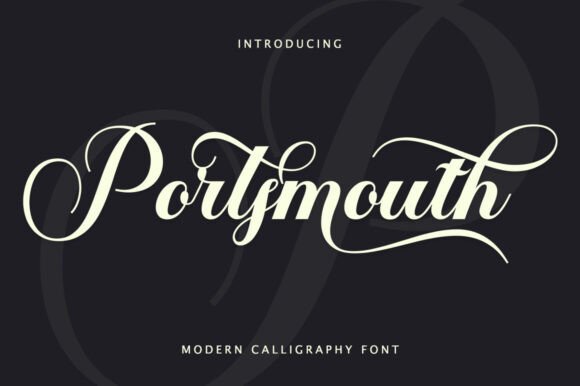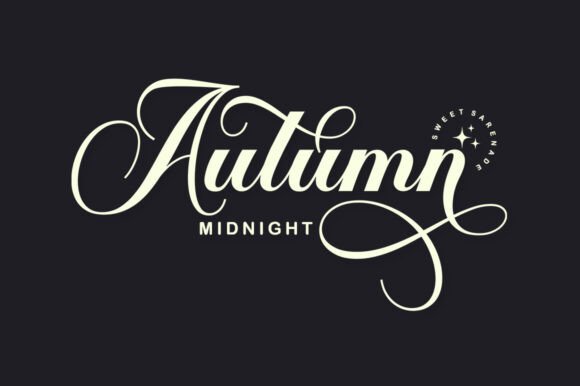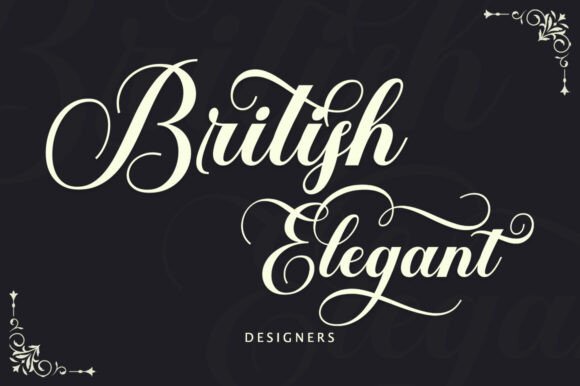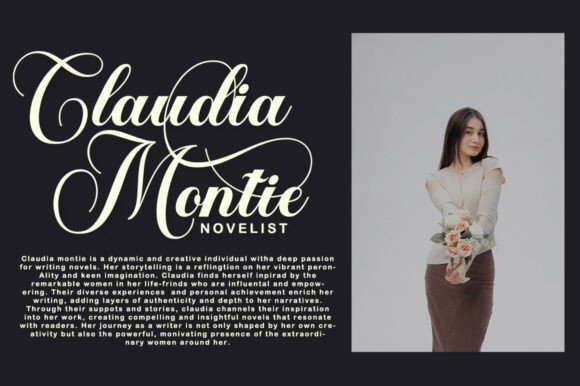
Portsmouth Font
About the Portsmouth Font
Add a touch of class to your work with the Portsmouth Font, a truly exceptional typeface. Portsmouth Script is a calligraphy script font that comes with very beautiful changing characters, a kind of classic decorative copper script with a modern touch, designed with high detail to bring stylish elegance. Portsmouth Script is attractive as a typeface that is smooth, clean, feminine, sensual, glamorous, simple, and very easy to read because there are many fancy letter connections. I also offer a number of viable style alternatives for many letters. The classic style is perfect to be applied in various formal forms such as invitations, labels, restaurant menus, logos, fashion, make up, stationery, novels, magazines, books, greeting/wedding cards, packaging, labels or any type of advertising purpose.
Portsmouth Font Usage Examples
Portsmouth Font Example